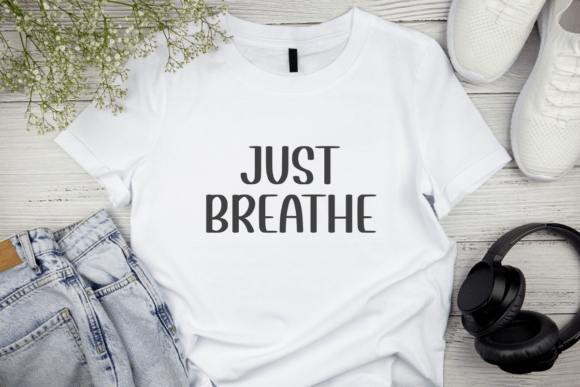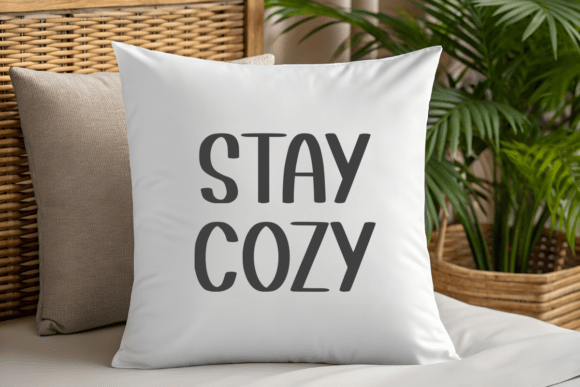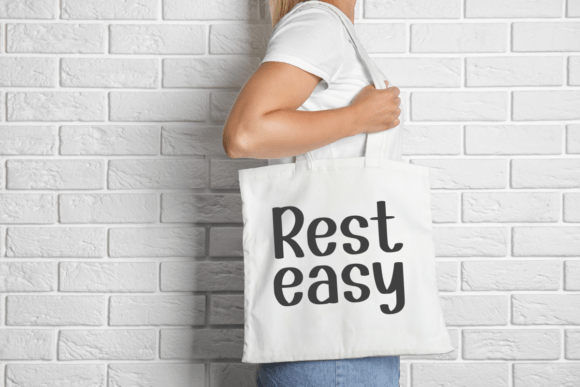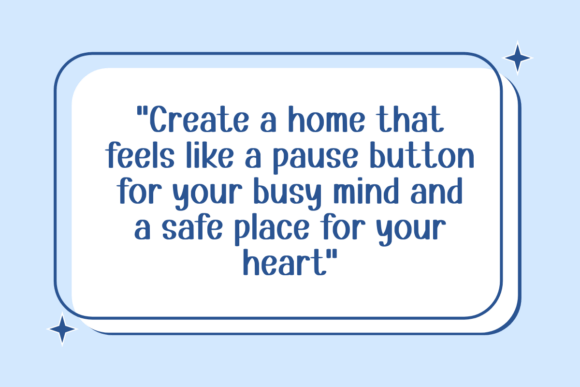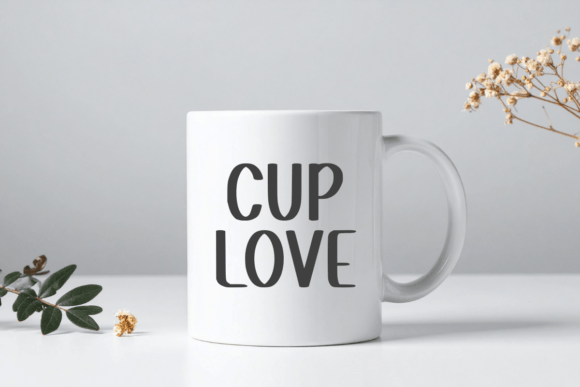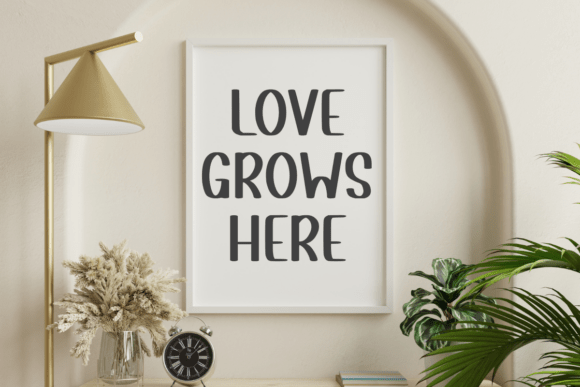
Introducing Berries Planner Font: The Perfect Handwritten Style for Crafty Projects
Are you a crafter, designer, or DIY enthusiast looking for a font that adds a personal touch to your projects? Look no further than Berries Planner Font, a delightful handwriting font designed to bring a soft, friendly, and natural look to your creations. This charming font is perfect for craft projects, planners, stickers, kids’ worksheets, classroom printables, and DIY designs.
The Characteristics of Berries Planner Font
Berries Planner Font boasts simple strokes and smooth curves, making it easy to cut using popular cutting machines like Cricut and Silhouette. This feature is especially useful for crafting moms who love adorable handwritten styles but may not have extensive design experience. The font’s smooth curves and rounded edges give it a warm, handcrafted feel that’s perfect for a variety of applications.
Uses for Berries Planner Font
The versatility of Berries Planner Font is one of its standout features. Here are some ideas for using this lovely font:
- Quotes and Greeting Cards: Add a personal touch to your inspirational quotes, greeting cards, and invitations with Berries Planner Font.
- Kids’ Labels and Worksheets: Create engaging and educational materials for kids, including labels, worksheets, and coloring pages.
- Bullet Journals and Scrapbooks: Add a touch of whimsy to your bullet journals and scrapbooks with this delightful font.
- Playful Graphic Projects: Use Berries Planner Font to create fun and playful graphic projects, such as stickers, printable art, and more.
Why Choose Berries Planner Font?
So, what sets Berries Planner Font apart from other fonts? Here are a few reasons why designers and crafters love this font:
- Easy to Read: Berries Planner Font is clear and easy to read, making it perfect for a variety of applications.
- Versatile: This font can be used for both digital and print projects, making it a great addition to your font library.
- Cute and Playful: Berries Planner Font has a playful, charming quality that adds a personal touch to any project.
Tips for Using Berries Planner Font
To get the most out of Berries Planner Font, here are a few tips:
- Experiment with Colors: Try pairing Berries Planner Font with different colors and textures to add depth and interest to your projects.
- Mix and Match Fonts: Combine Berries Planner Font with other fonts to create a unique and visually appealing design.
- Use it for Digital and Print Projects: Berries Planner Font is versatile and can be used for both digital and print projects.
Berries Planner Font is a delightful handwritten font that’s perfect for crafty projects, designers, and DIY enthusiasts. Its soft, friendly, and natural look makes it ideal for a variety of applications, from craft projects and planners to stickers and kids’ worksheets. With its simple strokes and smooth curves, Berries Planner Font is easy to cut and use with popular cutting machines. Whether you’re a seasoned designer or a crafting mom, Berries Planner Font is a great addition to your font library.